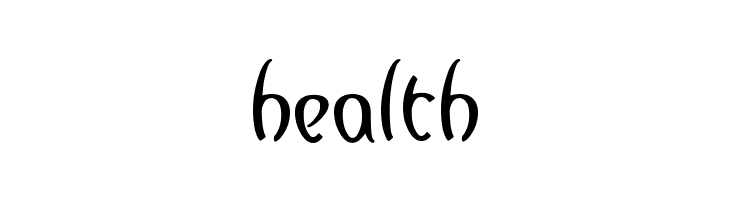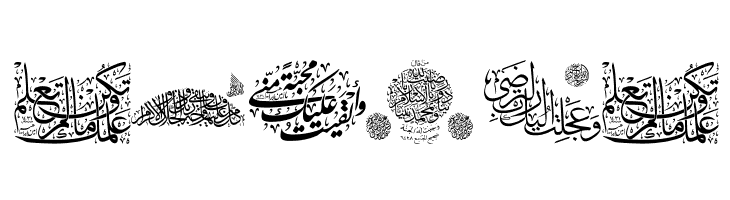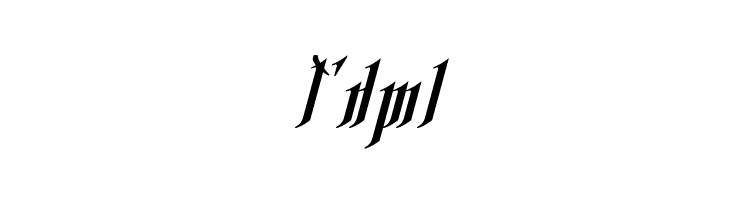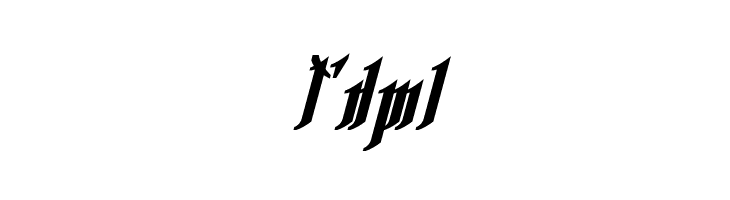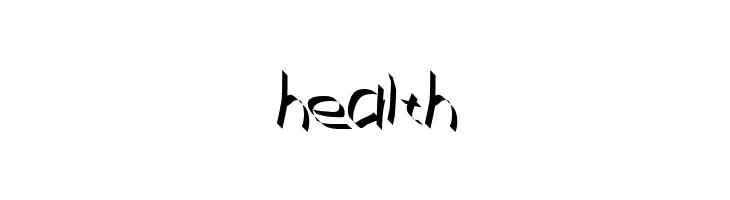
A dynamic, thin italic font with a modern calligraphic style.
A bold, angular font with a calligraphic and graffiti-inspired style.
A dynamic, calligraphic font with sharp, angular strokes and high contrast.
A bold, brush-stroke inspired font with a calligraphic flair.
A graceful script font with elegant, flowing calligraphic style.